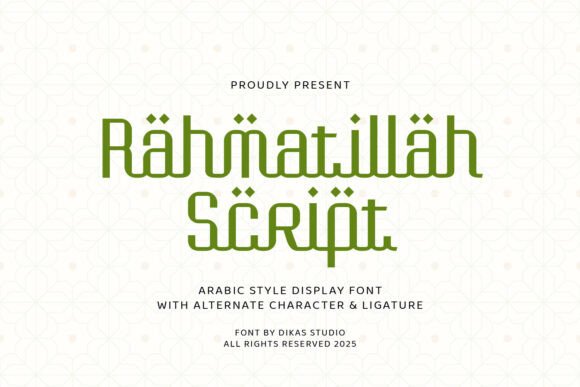
Rahmatillah Script Font: Elevate Your Design with Elegant Islamic Typography
In the realm of typography, few fonts manage to capture the essence of cultural elegance and spiritual harmony as effectively as the Rahmatillah Script Font. This refined and elegant Islamic font seamlessly blends traditional Arabic calligraphy with modern, minimalist design elements, making it an exceptional choice for a wide range of creative projects. Whether you’re working on Ramadan-related content, Islamic events, Arabic-themed branding, or religious invitations, Rahmatillah Script offers the perfect balance of aesthetic appeal and cultural relevance.
Key Features of Rahmatillah Script Font
Rahmatillah Script is distinguished by its thin, rigid strokes and clean structure, which contribute to its unique visual appeal. The font’s design embodies the principles of Arabic calligraphy while incorporating a modern, minimalist approach. This blend of traditional and contemporary styles results in a typeface that is not only visually striking but also highly versatile.
- Thin and Rigid Strokes: The font’s thin strokes lend it an air of elegance and sophistication, making it suitable for projects that require a refined aesthetic.
- Clean Structure: The clean and structured flow of Rahmatillah Script enhances its readability and aesthetic clarity, making it ideal for a variety of applications, from quotes and packaging to logos and social media graphics.
- Blends Tradition with Modernity: By merging traditional Arabic calligraphy with modern design principles, Rahmatillah Script achieves a unique balance that respects cultural heritage while meeting contemporary design standards.
Ideal Applications for Rahmatillah Script Font
The versatility and cultural significance of Rahmatillah Script make it an excellent choice for various design projects. Here are some ideal applications:
- Ramadan and Islamic Events: Create captivating posters, flyers, and social media content for Ramadan and other Islamic events, adding a touch of spiritual elegance to your designs.
- Arabic-Themed Branding: Incorporate Rahmatillah Script into your branding strategy to convey cultural authenticity and sophistication, perfect for businesses looking to connect with Arabic-speaking audiences.
- Religious Invitations: Design beautiful and respectful invitations for religious occasions, such as weddings, Eid celebrations, or mosque gatherings, that reflect the significance of the event.
- Quotes and Typography: Use Rahmatillah Script to create inspiring quotes, sayings, and phrases that require a touch of elegance and cultural relevance.
- Packaging and Product Design: Add a unique and culturally-inspired touch to your product packaging, making it stand out in the market.
- Logos and Wordmarks: Create memorable logos and wordmarks that embody the essence of your brand, especially for businesses operating in Arabic-speaking regions or targeting Islamic audiences.
- Social Media Graphics: Enhance your social media presence with elegant graphics, banners, and posts that resonate with your audience’s cultural background.
Benefits of Using Rahmatillah Script Font
Incorporating Rahmatillah Script into your design projects offers several benefits:
- Cultural Relevance: The font’s Arabic calligraphy style ensures cultural relevance and authenticity, making your designs more relatable and respectful.
- Aesthetic Appeal: The elegant and modern design of Rahmatillah Script adds a sophisticated touch to your projects, enhancing their visual appeal.
- Versatility: Suitable for a wide range of applications, from digital content to print materials, Rahmatillah Script offers flexibility in design.
- Readability: The clean structure and clear flow of the font ensure high readability, making it effective for both headings and body text.
Tips for Effective Use of Rahmatillah Script Font
To maximize the impact of Rahmatillah Script in your designs, consider the following tips:
- Pair with Complementary Fonts: Combine Rahmatillah Script with simple, sans-serif fonts for body text to create visual contrast and enhance readability.
- Adjust Letter Spacing: Optimize letter spacing to maintain the font’s elegance and ensure that the text is easy to read.
- Use Appropriate Colors: Select colors that complement the cultural and spiritual theme of the font, such as traditional Islamic colors or muted tones.
- Consider Context: Tailor your design to the specific context and audience, ensuring that the font aligns with the project’s cultural and thematic requirements.
Rahmatillah Script Font is a powerful tool for designers seeking to infuse their projects with elegance, cultural relevance, and spiritual harmony. Its unique blend of traditional Arabic calligraphy and modern minimalism makes it an exceptional choice for a variety of applications. By incorporating Rahmatillah Script into your designs, you can create visually stunning and culturally respectful content that resonates with your audience.
As you explore the possibilities of Rahmatillah Script Font, you’ll discover its potential to elevate your designs and connect with your audience on a deeper level. Whether you’re working on Ramadan-related content, Arabic-themed branding, or religious invitations, this elegant Islamic font is sure to leave a lasting impression.